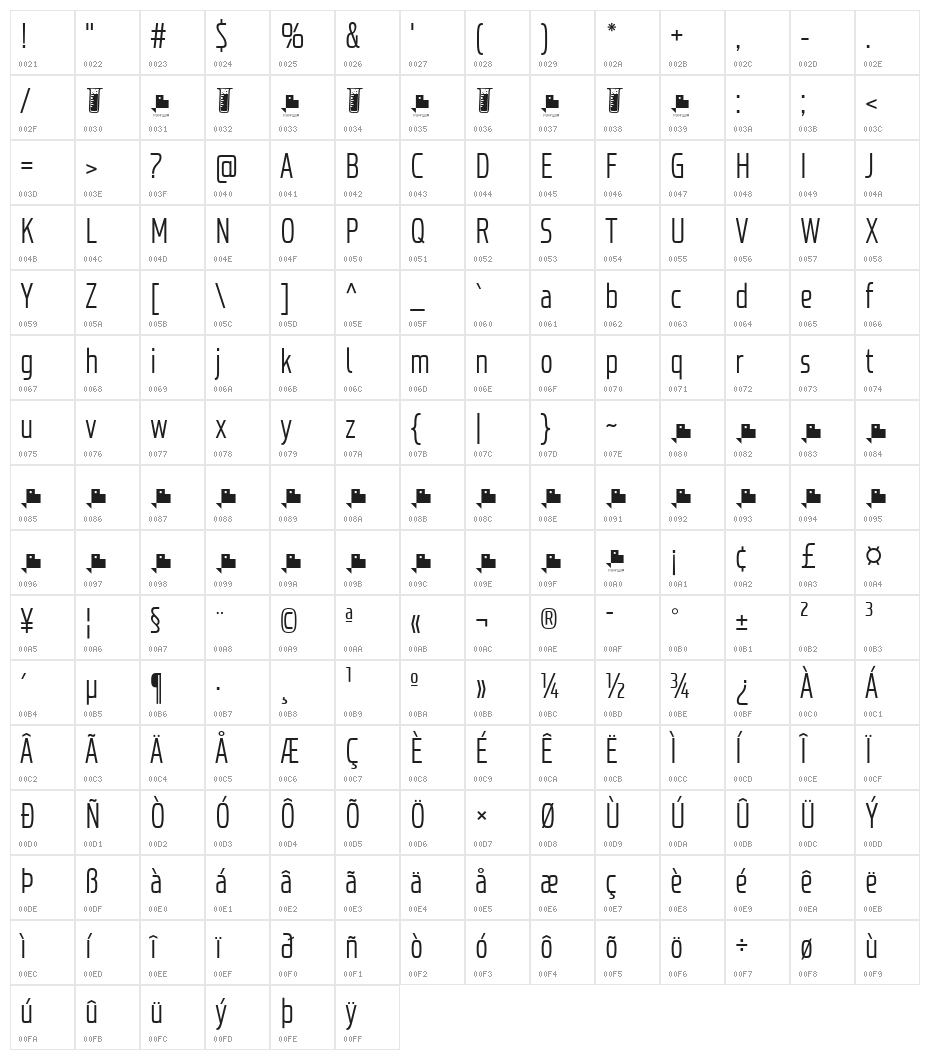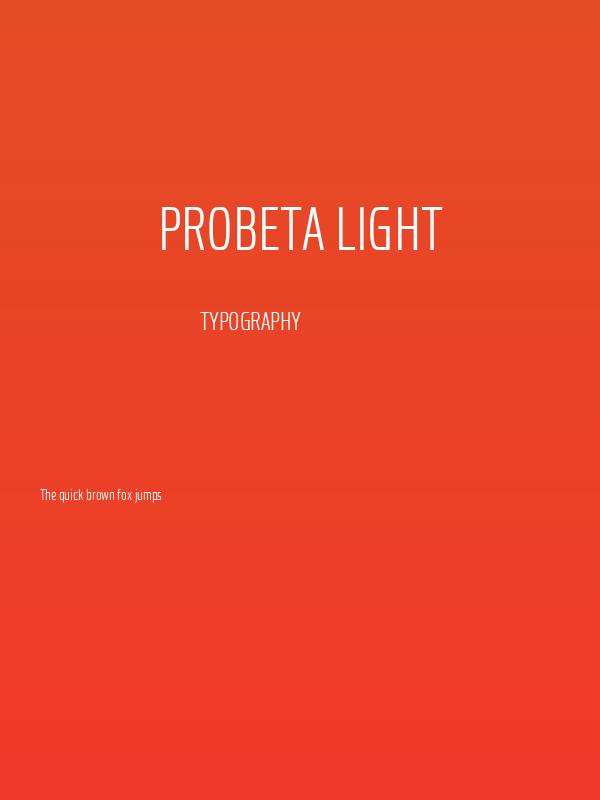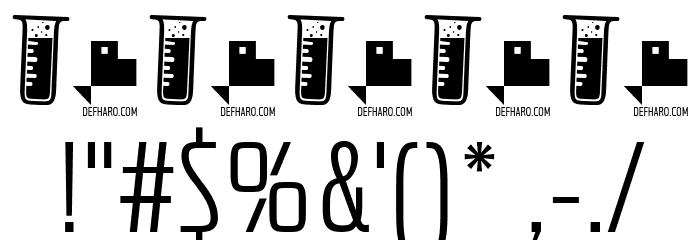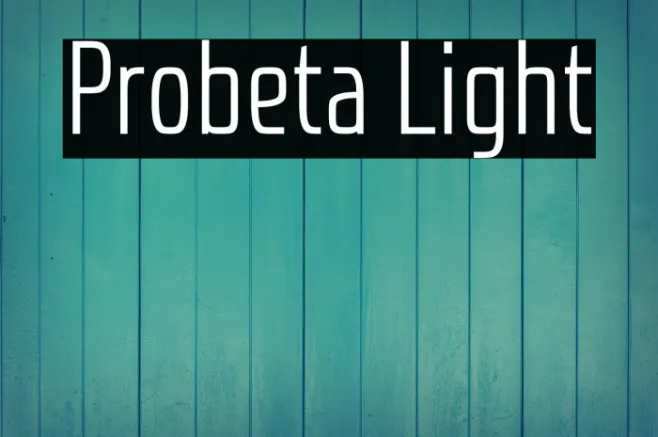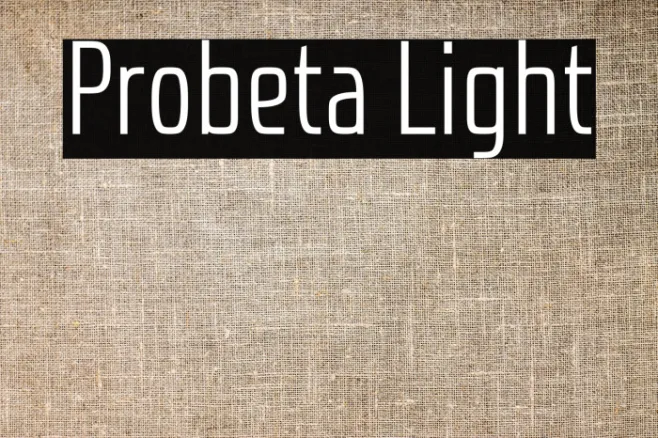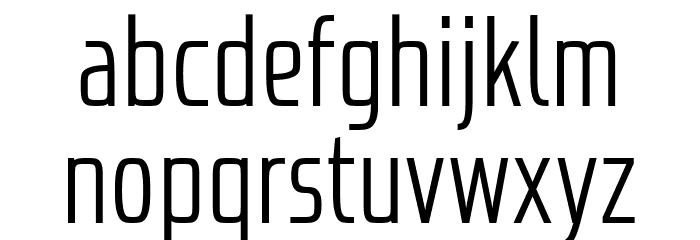
Probeta Light Font
Probeta Light Description
This font features a clean and modern sans-serif style with a geometric structure. The characters are tall and narrow, giving it a sleek and contemporary appearance. The strokes are consistent in width, contributing to a uniform and balanced look. The uppercase letters are slightly taller than the lowercase, and the overall design is minimalistic, making it suitable for a variety of applications. The font includes a full set of uppercase and lowercase letters, numbers, and a selection of special characters. Its simplicity and clarity make it ideal for both digital and print media.